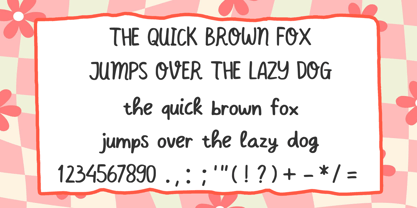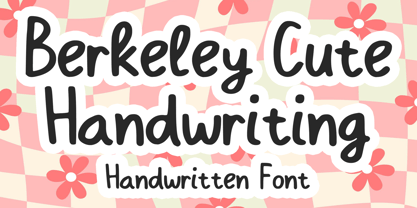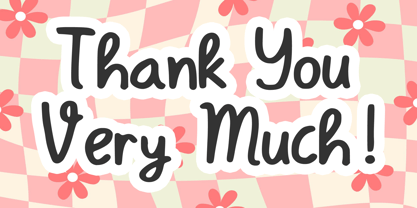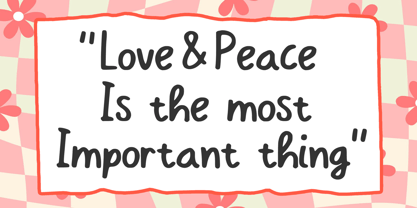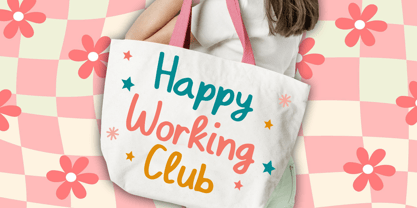
Berkeley Cute Handwriting
by Mvmet
The Berkeley Cute Handwriting Font Family was designed by Gabriel Valentinus and published by Mvmet. Berkeley Cute Handwriting contains 1 styles.
Berkeley Cute Handwriting is a vivacious, handwritten font that effortlessly infuses a dash of whimsy and spontaneity into various design creations. Its dynamic design leaps off the page, making it the perfect choice for vibrant stickers, captivating t-shirt graphics, spellbinding logos, and impactful magazine or book covers. Your comic narratives and cartoon sketches will come to life with this font's playful strokes. Even for daily typing, Berkeley Cute Handwriting ensures your content stands out. This truly unique font adds an irresistible edge to your projects, making them pop with a cool touch of originality and freshness.
Designers: Gabriel Valentinus
Publisher: Mvmet
Foundry: Mvmet
Design Owner: Mvmet